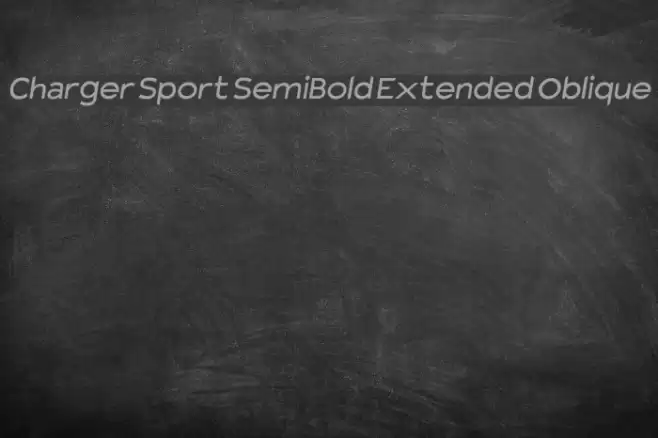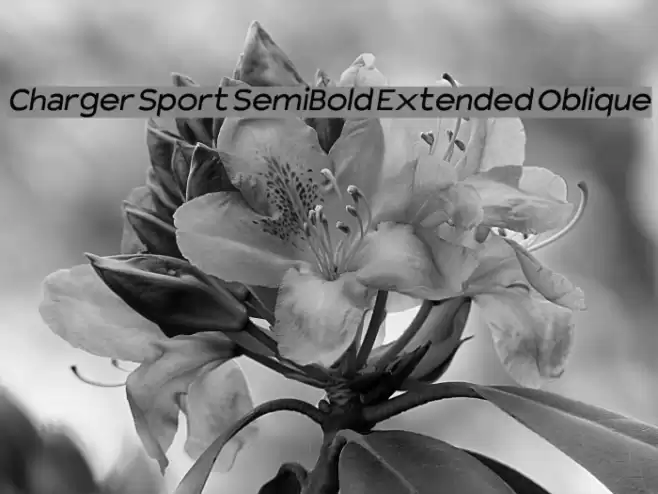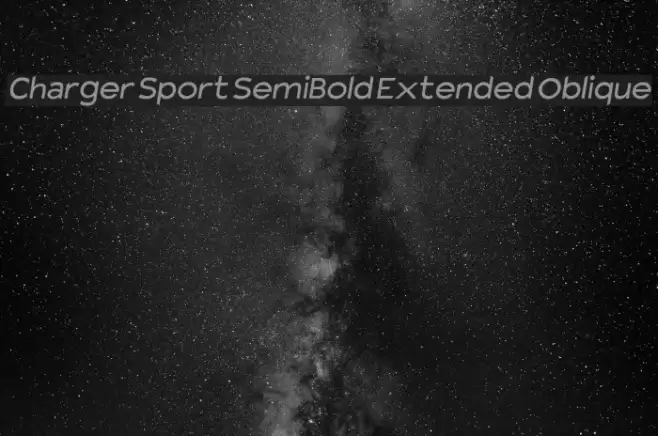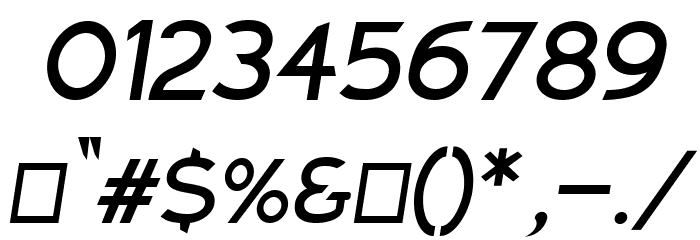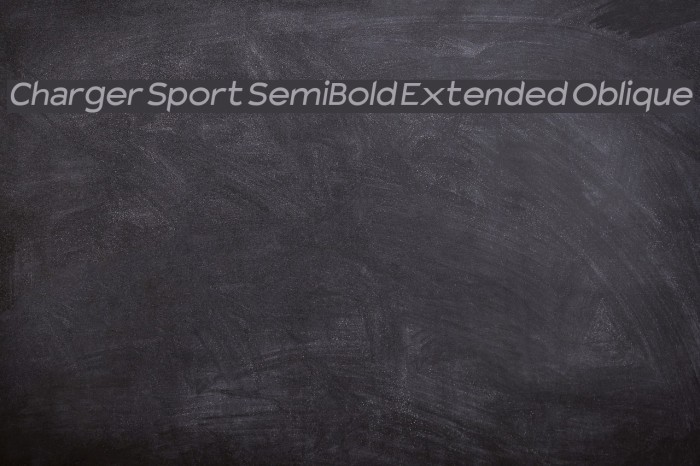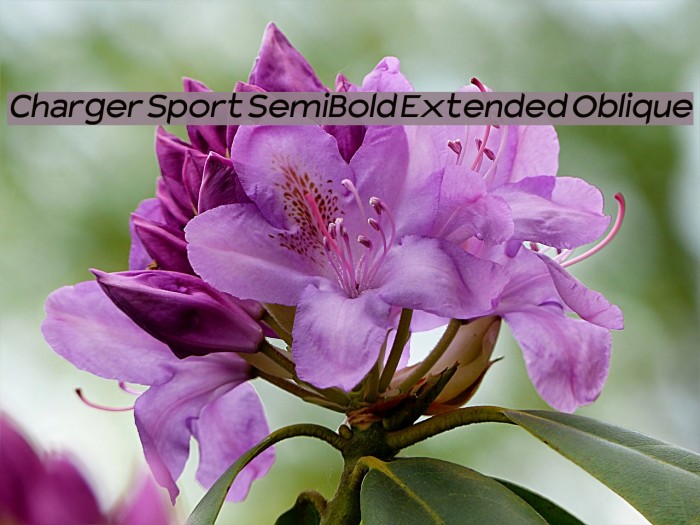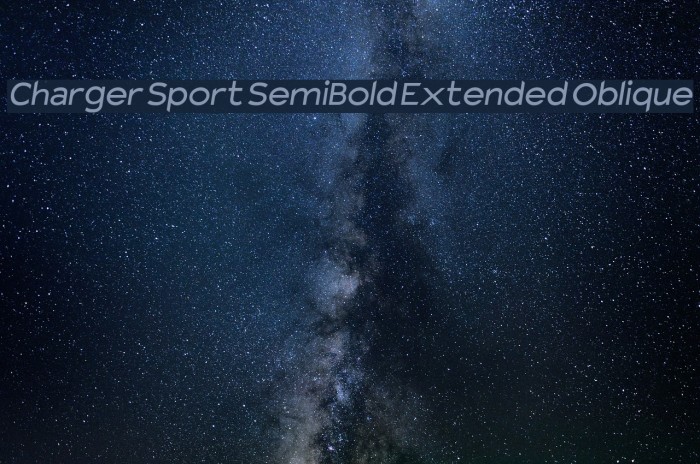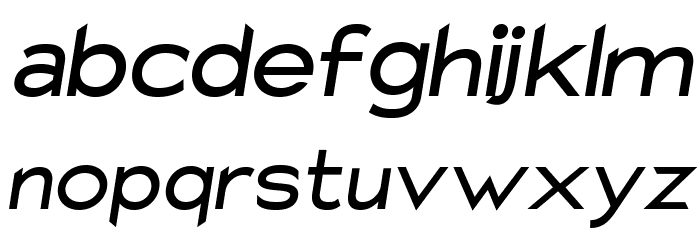
Charger Sport SemiBold Extended Oblique Font
Charger Sport SemiBold Extended Oblique Description
This font exhibits a dynamic and sporty aesthetic, characterized by its semi-bold weight and extended width. The oblique style adds a sense of motion and energy, making it ideal for projects that require a modern and active feel. The characters are well-defined with a slight slant, enhancing readability while maintaining a sleek appearance. The numerals and special characters are consistent with the overall design, ensuring uniformity across all text elements. This font's unique combination of features makes it versatile for various design applications.
A dynamic, semi-bold, extended oblique font with a sporty and modern style from Uncategorized fonts.
- Proposed Projects: Ideal for sports branding, dynamic posters, modern advertisements, and activewear labels.
- Use Case: Headlines, Logos, Branding